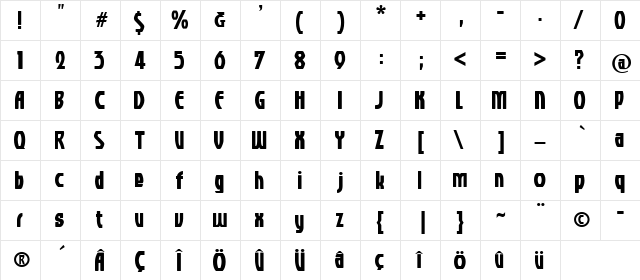
Ultimate Marvel Regular
Design Context for Ultimate Marvel Typeface
Ultimate Marvel takes a measured approach to typography — its balanced proportions and neutral character make it a reliable workhorse for both digital and print work.